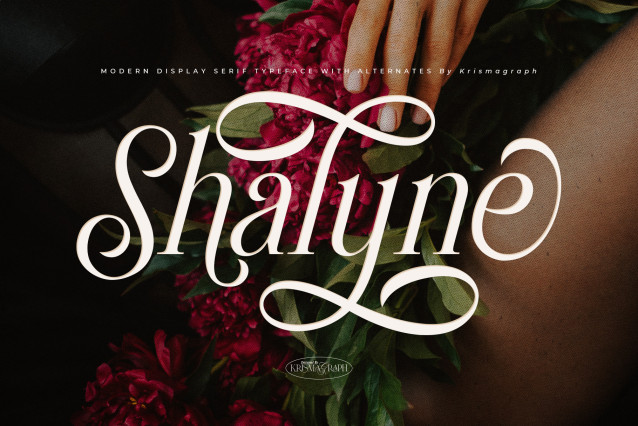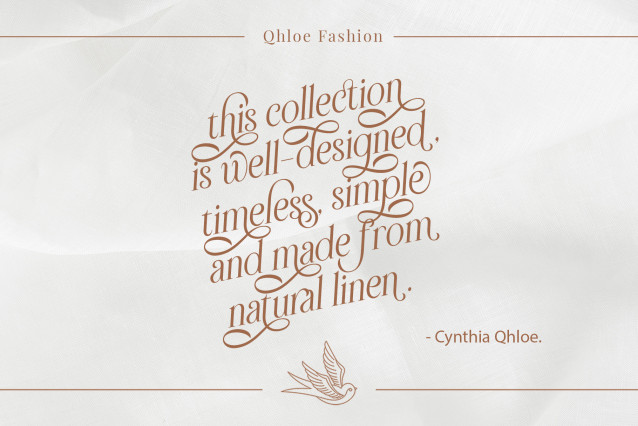
Shalyne Font
Shalyne Font, an elegant italic serif font designed to perfection. With its enchanting ligatures and alternates, this typeface adds a touch of allure to your lettering and logotypes.
This versatile font effortlessly elevates various formal applications. From exquisite invitations and stylish labels to captivating magazine headers and book covers, Shalyne Typeface brings your designs a clean and sophisticated look.
Perfectly suited for logos, clothing branding, product packaging, and more, this font enhances the aesthetics of any project. Whether it’s fashion, cosmetics, quotes, stationery, or novels, let Shalyne Typeface bring your ideas to life.